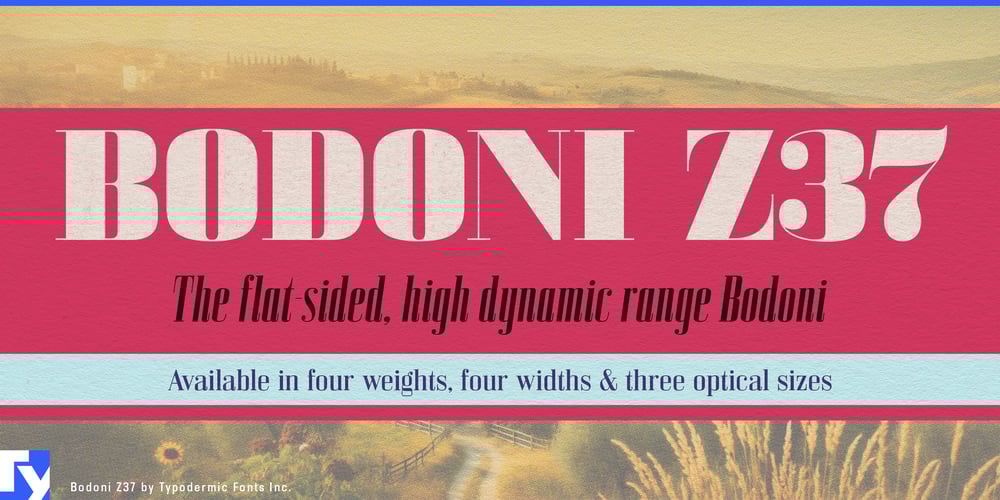
Bodoni Z37
Bodoni Z37 font
Bodoni Z37 Font Family was designed by Ray Larabie and published by Typodermic. Bodoni Z37 contains 95 styles and family package options. Step into the future of elegance with Bodoni Z37—a Didone typeface that bridges centuries of typographic tradition with the aesthetics of tomorrow. Designed with the discerning eye of the mid-21st century in mind, this font family is a testament to the enduring allure of European refinement.Bodoni Z37’s Deco-inspired design, characterized by flat edges and geometric precision, sets a new standard in typographic excellence. Its razor-thin lines captivate at larger sizes, creating headlines and posters that demand attention. For more intimate applications, the typeface offers three meticulously crafted optical sizes—large, medium, and small—ensuring impeccable legibility across all scales of design. With an impressive array of 96 font options—encompassing four weights, four widths, and their italic counterparts—Bodoni Z37 offers unparalleled versatility. The curly italics add a touch of whimsy to your compositions, while the lining numerals, kerned and proportionally spaced, elevate the sophistication of your numerical presentations. Bodoni Z37 speaks the language of global design fluently. Its extensive character set spans most Latin-based European languages, Vietnamese, Greek, and a wide array of Cyrillic-based writing systems. From the chic boulevards of Paris to the avant-garde galleries of St. Petersburg, this typeface ensures your message resonates with cosmopolitan flair. The font’s OpenType features, including fractions, numeric ordinals, and old-style numerals, provide a playground for typographic experimentation. Whether you’re crafting a luxurious fashion editorial, designing an upscale restaurant menu, or creating branding for a high-end tech startup, Bodoni Z37 offers the tools to articulate your vision with precision and style.Choose Bodoni Z37 when you need a typeface that doesn’t just communicate—it captivates. It’s more than a font; it’s a design philosophy that marries the timeless elegance of Bodoni with the sleek sensibilities of the future. Let Bodoni Z37 be the cornerstone of your typographic wardrobe, ready to dress your designs in the height of sophisticated chic.Embrace the legacy of typographic excellence and step boldly into the future with Bodoni Z37—where tradition meets innovation, and every character tells a story of uncompromising elegance.